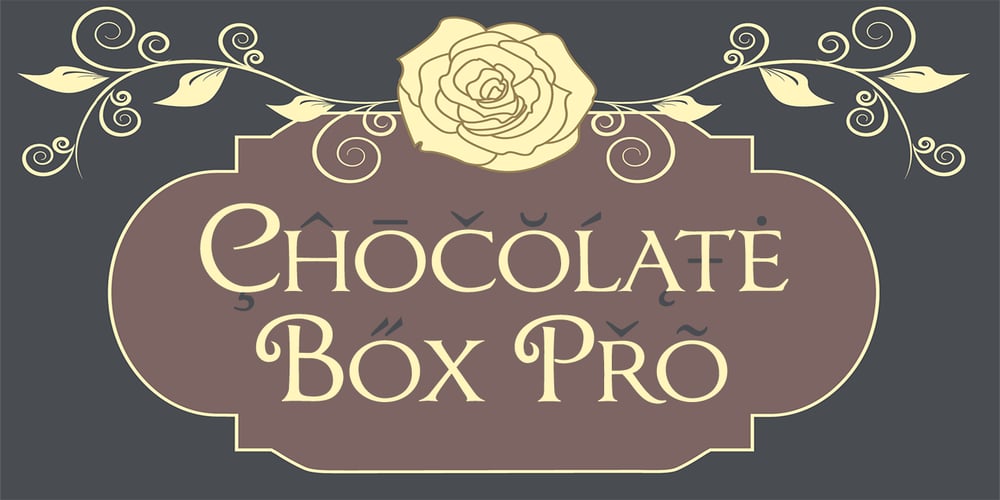
Chocolate Box Pro Font Family was designed by Roger S. Nelsson, Paul James Lloyd and published by CheapProFonts. Chocolate Box Pro contains 1 styles and family package options. The lowercase has classical Roman letterforms, and together with the cute, swirly capitals they make for a slightly more feminine take on the genre. Trajan lettering – with added sugar! ALL fonts from CheapProFonts have very extensive language support: They contain some unusual diacritic letters (some of which are contained in the Latin Extended-B Unicode block) supporting: Cornish, Filipino (Tagalog), Guarani, Luxembourgian, Malagasy, Romanian, Ulithian and Welsh. They also contain all glyphs in the Latin Extended-A Unicode block (which among others cover the Central European and Baltic areas) supporting: Afrikaans, Belarusian (Lacinka), Bosnian, Catalan, Chichewa, Croatian, Czech, Dutch, Esperanto, Greenlandic, Hungarian, Kashubian, Kurdish (Kurmanji), Latvian, Lithuanian, Maltese, Maori, Polish, Saami (Inari), Saami (North), Serbian (latin), Slovak(ian), Slovene, Sorbian (Lower), Sorbian (Upper), Turkish and Turkmen. And they of course contain all the usual “western” glyphs supporting: Albanian, Basque, Breton, Chamorro, Danish, Estonian, Faroese, Finnish, French, Frisian, Galican, German, Icelandic, Indonesian, Irish (Gaelic), Italian, Northern Sotho, Norwegian, Occitan, Portuguese, Rhaeto-Romance, Sami (Lule), Sami (South), Scots (Gaelic), Spanish, Swedish, Tswana, Walloon and Yapese.